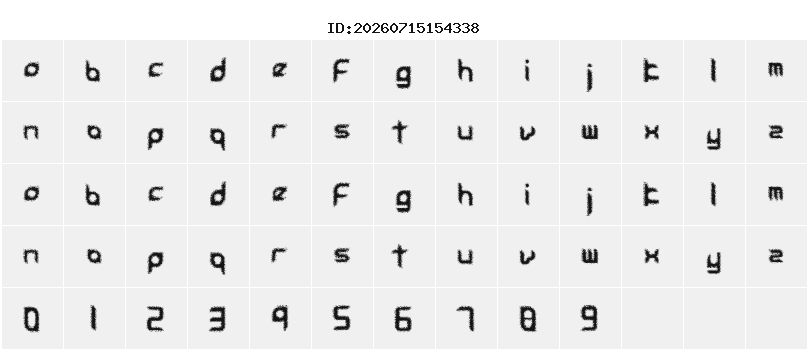
accessories urban Preview
• Font Name: accessories urban
• Full Font Name: accessories urban
• Version: Version 1.00 February 13, 2010, initial release
• Character Count: 66
About accessories urban.ttf
accessories urban.ttf is a modern, elegant sans-serif font designed for ultimate readability and visual harmony. Perfect for branding, headlines, web design, and print materials.